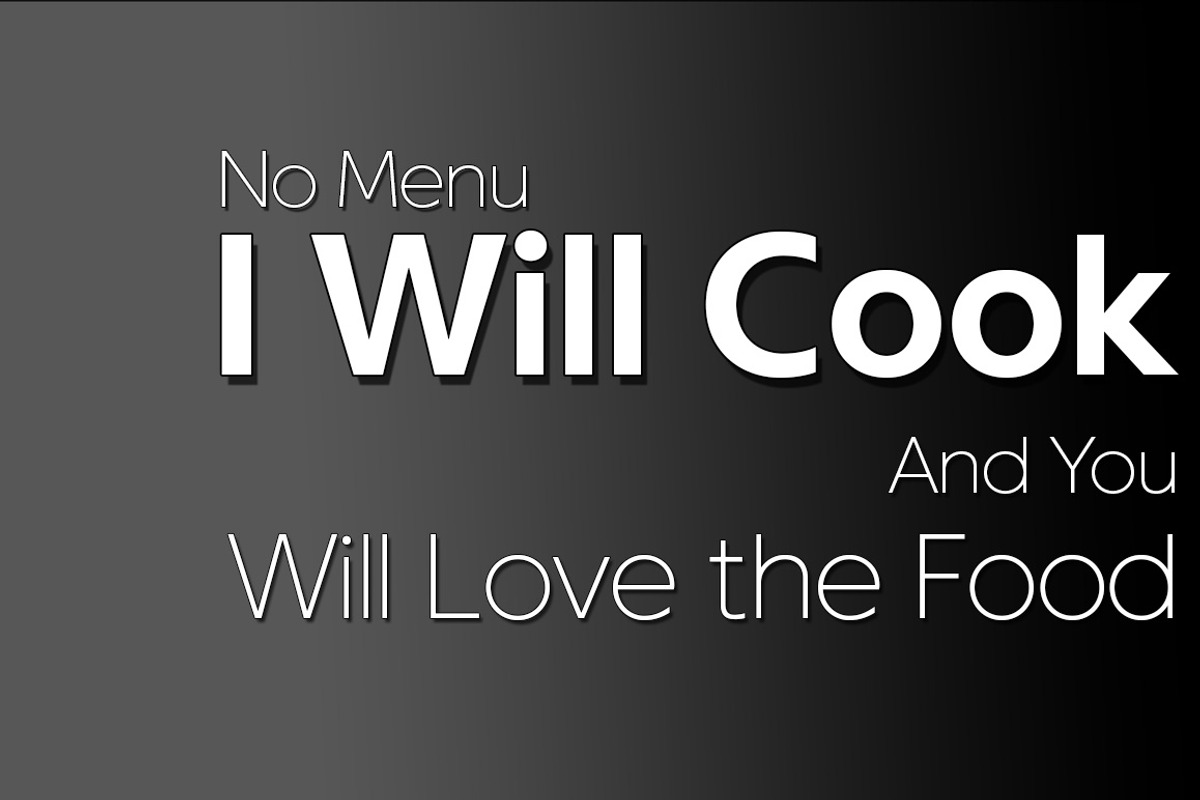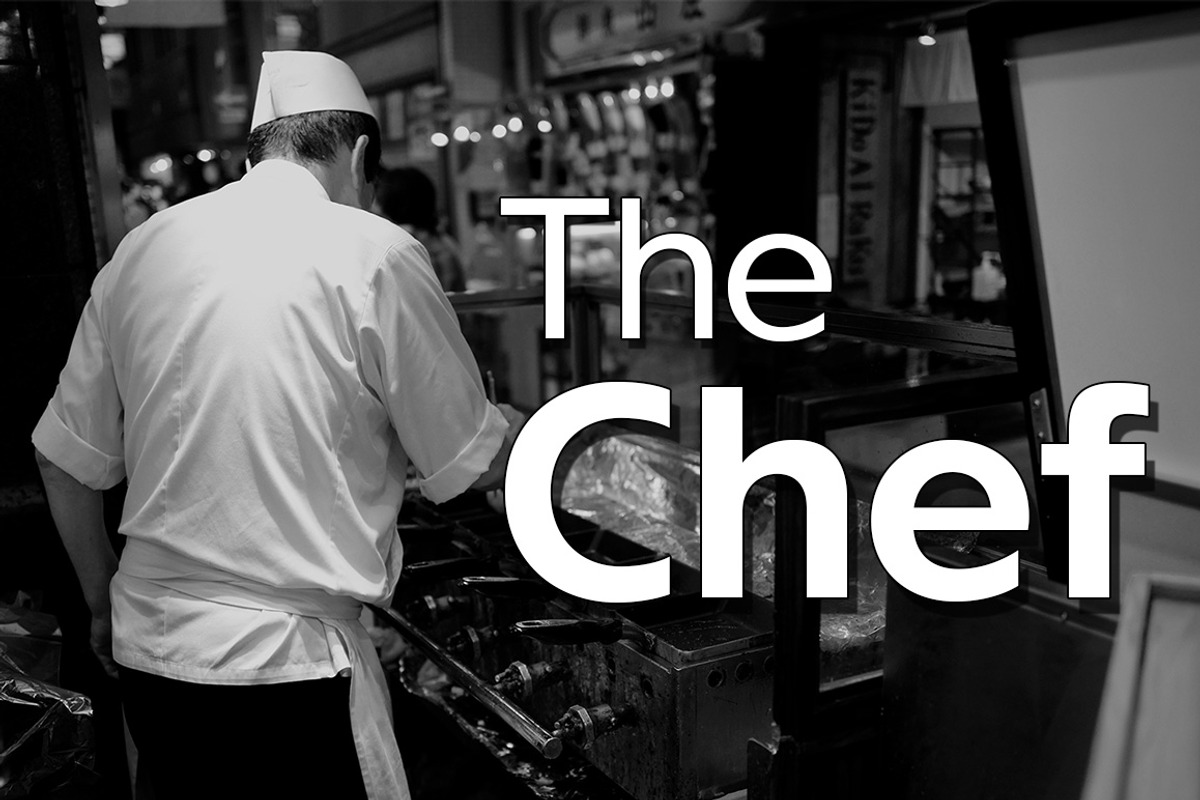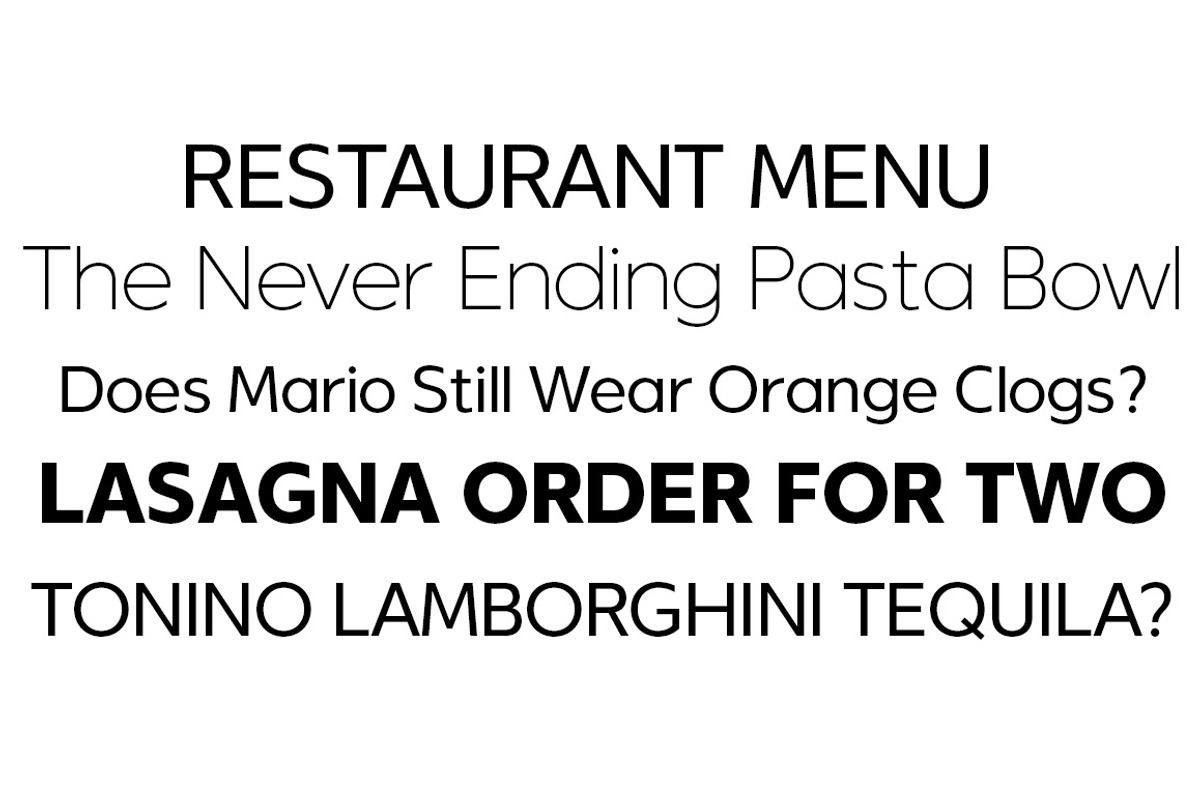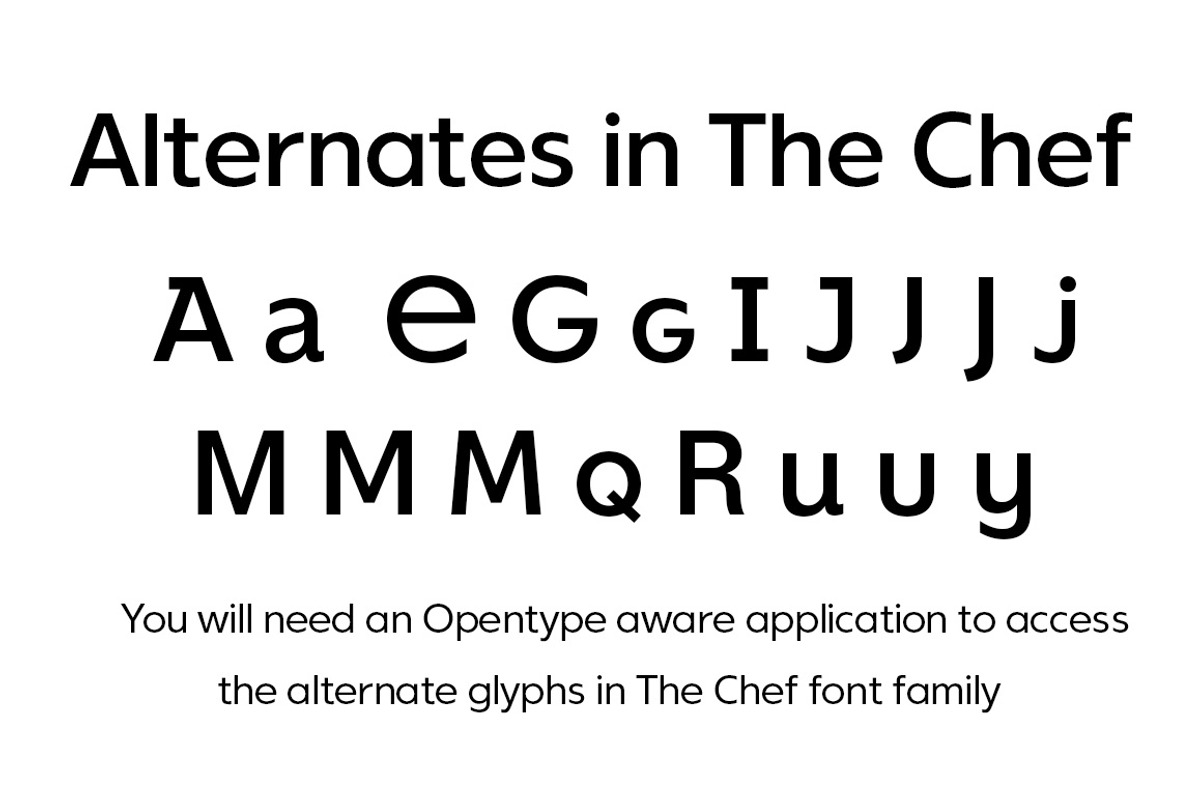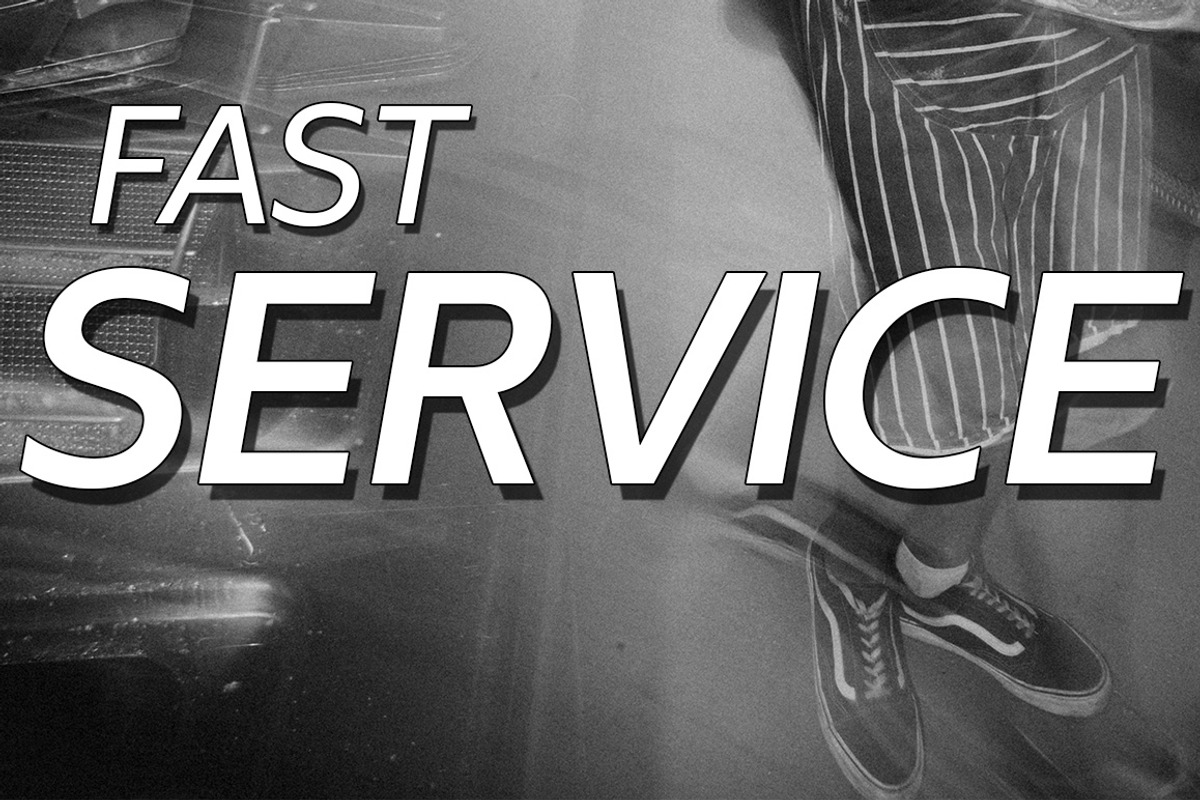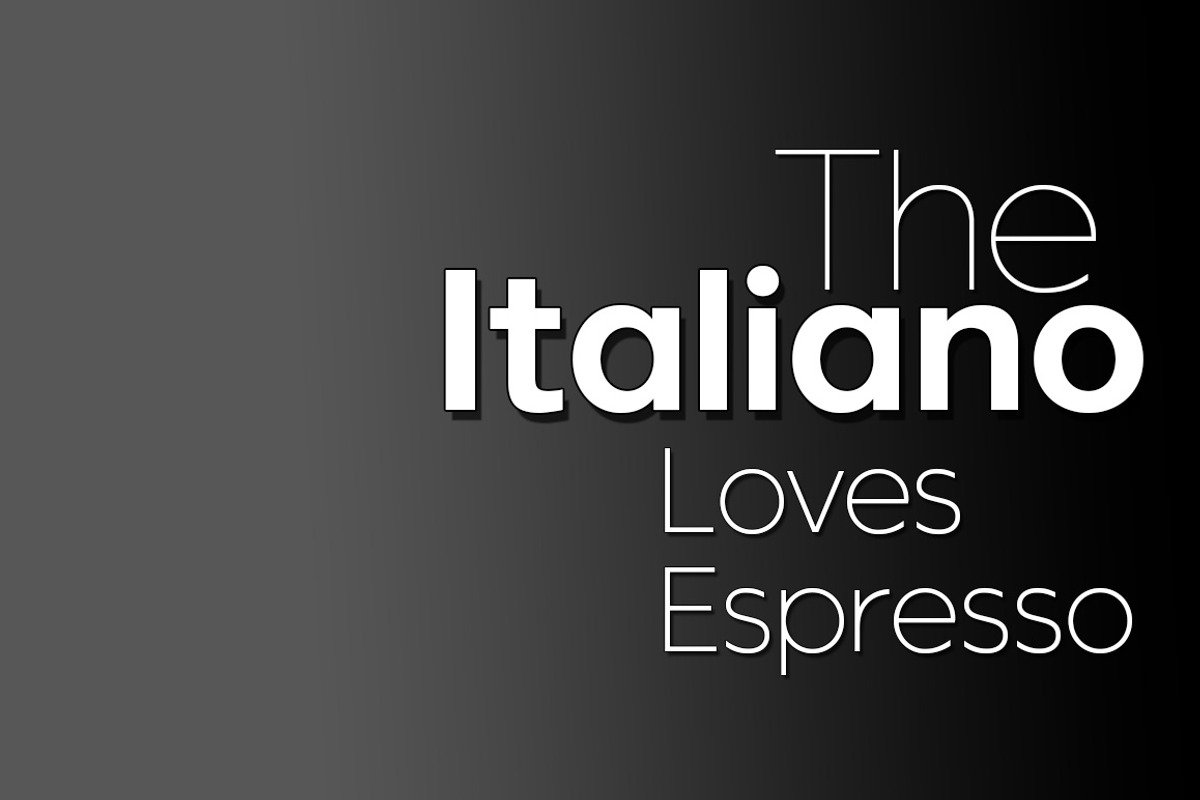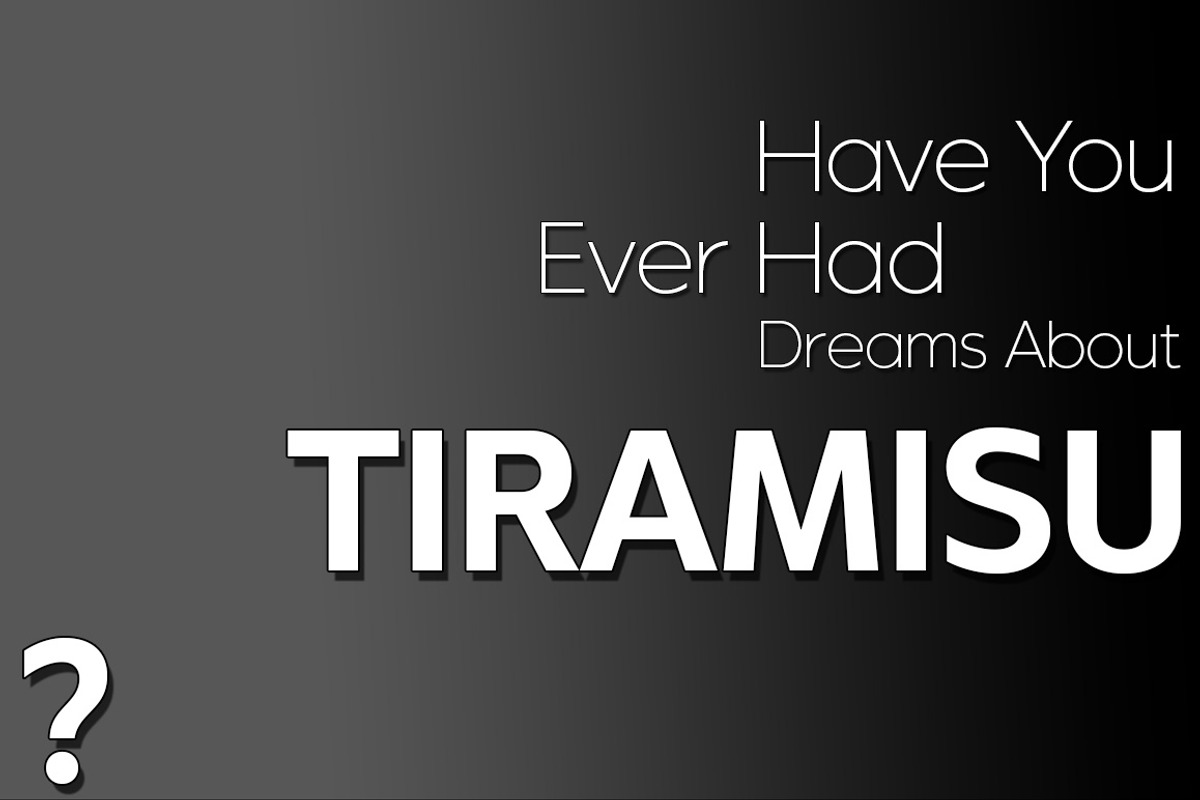
The Chef font family
The Chef is our next font design in the sans serif category, the name of this font was inspired by the name of the popular TV series called The Bear which is based in Chicago where I'm originally from.
With The Chef font we've included a few alternate glyphs but we didn't go too crazy, I think of The Chef as a basic Black Dress or Black Suit and Tie style of font that will fit your many needs for years to come. You will need an Opentype aware application to access the alternate glyphs in The Chef font family.